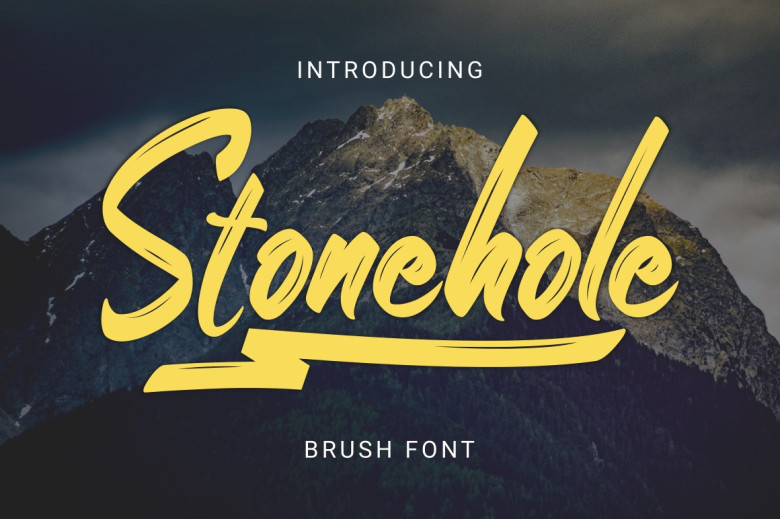
Stonehole Font
Stonehole offers a timeless and textured hand-lettering style. Its bold strokes and swashes will help any design project stand out!
This brush-script font with hand-brushed letters stands out thanks to its bold yet rough texture, making it suitable for branding purposes, logos, headlines, apparel designs, prints and other displays.
Stonehole Modern Brush Font